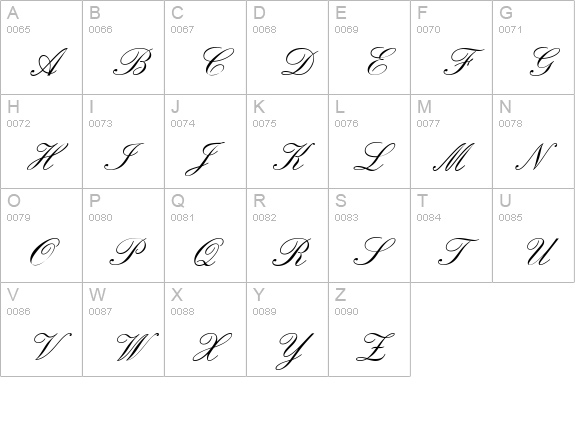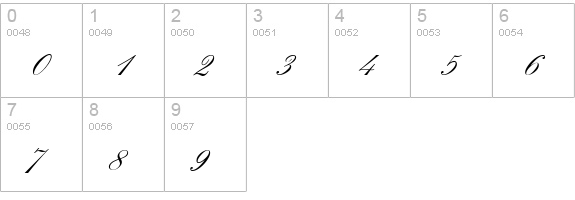
Elegant-Script-Regular is the standard, neutral variant in the Elegant typeface family \xE2\x80\x94 well suited to general body text, paragraphs, and standard typographic work.
Elegant Script Regular is a sophisticated and stylish font that exudes elegance and charm. Its flowing curves and graceful lines create a sense of refinement and luxury, making it the perfect choice for projects that require a touch of sophistication. This font is versatile and can be used for a wide range of design projects, from wedding invitations to branding materials. Its timeless appeal and classic beauty make it a popular choice among designers and creatives. The best part? Elegant Script Regular is available for free download at FontsMarket.com. Now you can add a touch of elegance to your projects without breaking the bank. Download this beautiful font today and elevate your designs to new heights of sophistication.